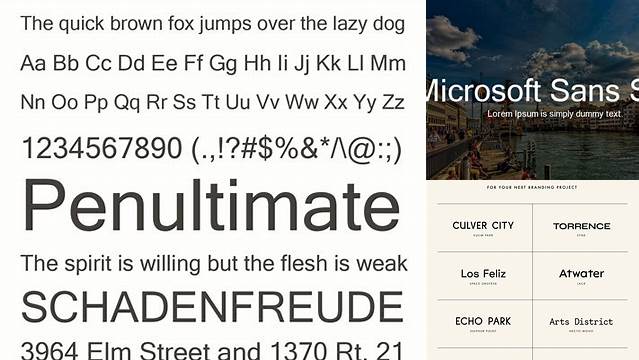
Hey guys! Ever wondered about that classic, clean font that seems to be everywhere? Yeah, I'm talking about MS Sans Serif. It's like the unsung hero of fonts, you know? Super versatile, easy to read, and it's got this timeless vibe. So, if you're looking to download MS Sans Serif font for free and want to know everything about it, you've come to the right place! We're gonna dive deep into its history, uses, and where you can snag it without spending a dime. Let’s get started!
MS Sans Serif Font: An Overview
Let's kick things off with a quick overview. MS Sans Serif font is a raster typeface that's been a staple in the Windows operating system for ages. It's that go-to font for menus, dialog boxes, and system messages. Think of it as the friendly face of your computer's interface. It's designed to be super legible, even at small sizes, which is why it's been so popular for so long. Its simplicity is its strength, making it a reliable choice for all sorts of projects. But what makes it so special? We'll unravel that as we go along!
History of MS Sans Serif
Alright, let’s take a trip down memory lane! The history of MS Sans Serif is pretty interesting. It was originally designed for early versions of Microsoft Windows, way back when computers were these big, clunky machines. The goal was to create a font that looked clean and crisp on low-resolution screens. This was a big deal because back then, screen resolutions weren’t as sharp as they are today. MS Sans Serif was created to fill that need, and it did its job remarkably well. Over the years, it became a standard part of the Windows experience, a testament to its timeless design and practicality.
Key Features of MS Sans Serif Font
So, what makes MS Sans Serif tick? The key features of MS Sans Serif font are what make it such a solid choice for so many different uses. First off, it's incredibly legible. The letterforms are clear and well-defined, making it easy on the eyes, even in long paragraphs. It’s also a proportional font, meaning each character takes up a width that’s appropriate to its shape. This gives the text a balanced and harmonious look. Plus, it supports a wide range of characters and symbols, making it versatile for different languages and applications. It's these thoughtful design elements that make MS Sans Serif a classic.
MS Sans Serif vs Arial: A Comparison
Alright, let's get into a classic font showdown: MS Sans Serif vs Arial. These two are often compared because they share a similar sans-serif style and are both staples in the font world. Arial is another widely used font, known for its clean lines and readability. So, what’s the difference? Well, MS Sans Serif has a slightly more condensed appearance, while Arial is a bit wider. This can affect how text looks in different contexts. Ultimately, the best choice depends on your specific needs and aesthetic preferences. It’s all about finding the right fit for your project!
MS Sans Serif in Web Design
Now, let’s talk web design! MS Sans Serif in web design is an interesting topic. While it’s a solid font, it’s not always the best choice for websites. Why? Because it's a system font, meaning it relies on the user having it installed on their computer. If they don’t, the browser will substitute it with another font, which might not look the same. For web design, it’s generally better to use web fonts that are loaded directly from a server, ensuring consistency across different devices and browsers. However, MS Sans Serif can still be a good fallback font in your CSS, just in case other fonts don’t load properly. It's a solid backup plan!
MS Sans Serif in Graphic Design
Moving on to MS Sans Serif in graphic design, this font can be a great choice for projects that require a clean, no-fuss look. Think about things like informational posters, brochures, or even business cards. Its simplicity makes it easy to read and ensures your message comes across clearly. However, it might not be the best choice for projects that need a lot of personality or flair. It’s a workhorse font, reliable and straightforward, but it might not have the wow factor for more creative designs. It all depends on the vibe you're going for!
Best Uses for MS Sans Serif Font
So, what are the best uses for MS Sans Serif font? Well, it shines in situations where clarity and readability are key. Think about things like user interfaces, system messages, technical documents, and anything that needs to be easily read at small sizes. It's also a good choice for body text in print documents where you want a clean, professional look. Basically, if you need a font that’s reliable and easy on the eyes, MS Sans Serif is a solid bet. It's the font equivalent of a trusty old friend!
The Future of Font Technology and MS Sans Serif
Finally, let's ponder the future of font technology and MS Sans Serif. Font technology is constantly evolving, with new formats, features, and capabilities emerging all the time. While MS Sans Serif might not be at the cutting edge of these developments, its core strengths – readability, simplicity, and versatility – will likely remain relevant. As technology advances, there will always be a need for fonts that are clear, easy to read, and work well in a variety of contexts. So, while MS Sans Serif might not be the flashiest font on the block, it’s a dependable classic that’s likely to have a place in the design world for years to come. It's like a well-built house – it might not have all the latest gadgets, but it’s solid, reliable, and provides a comfortable place to live!